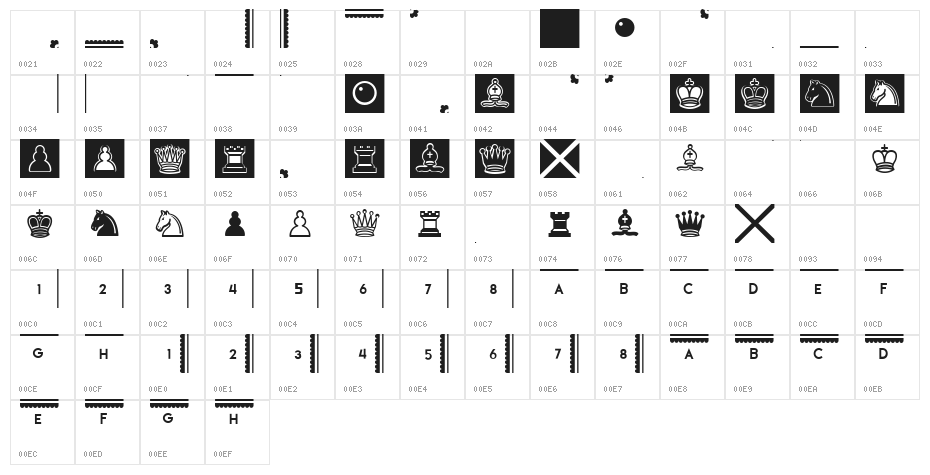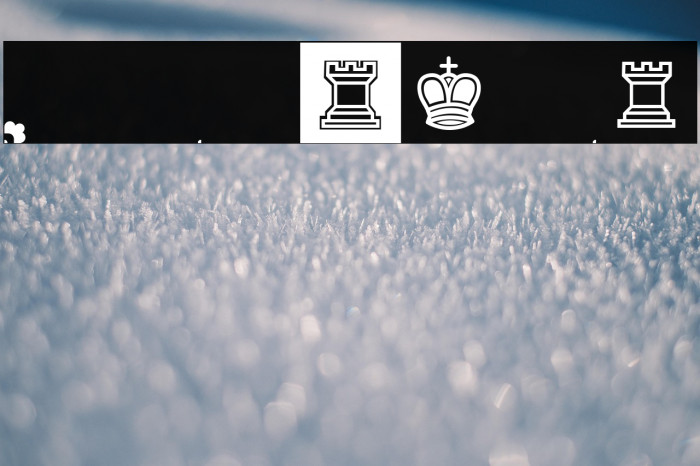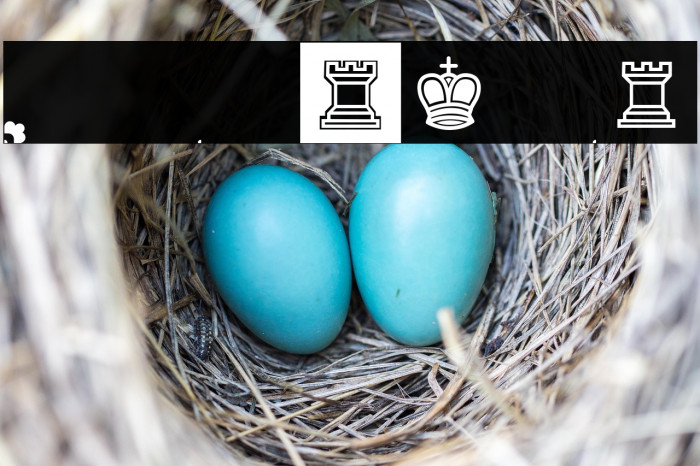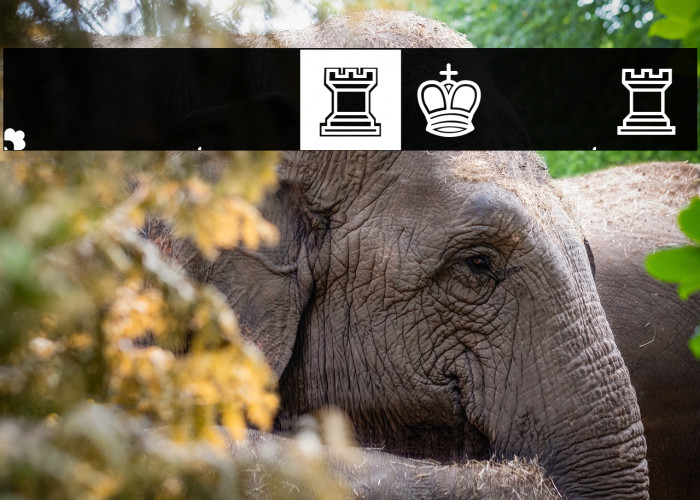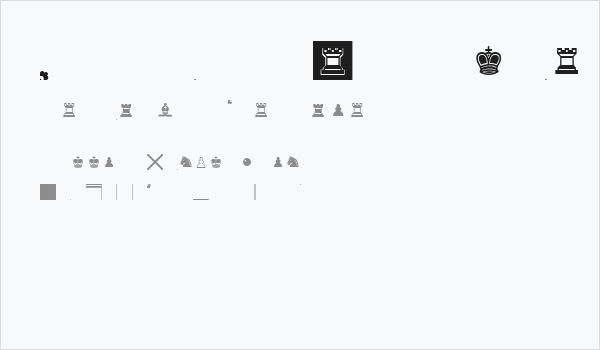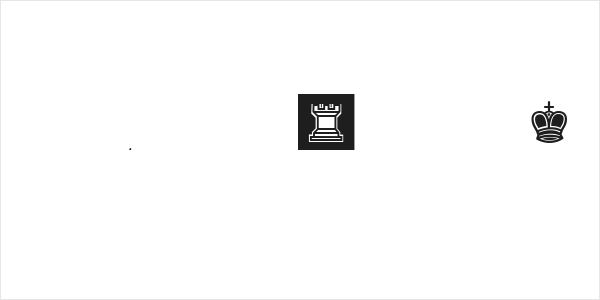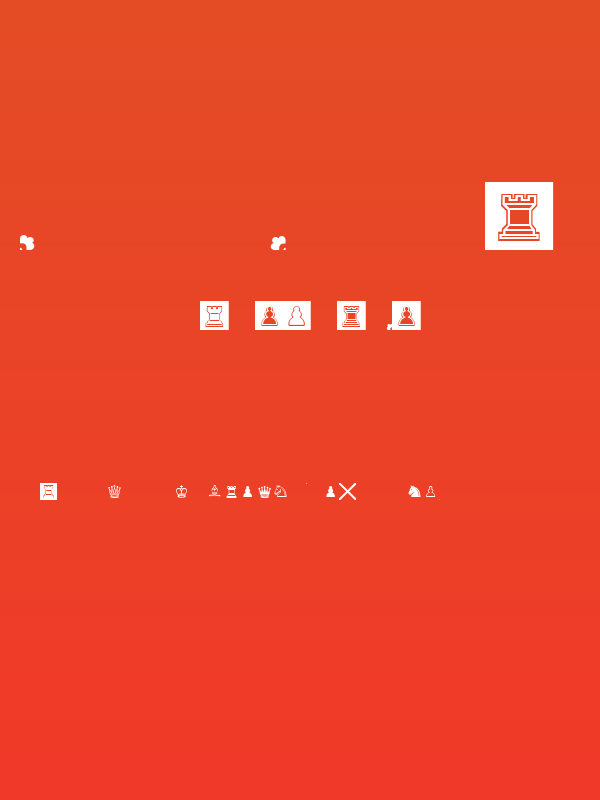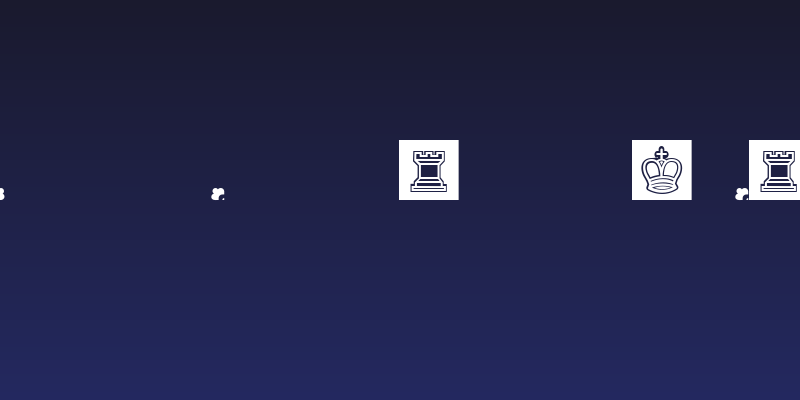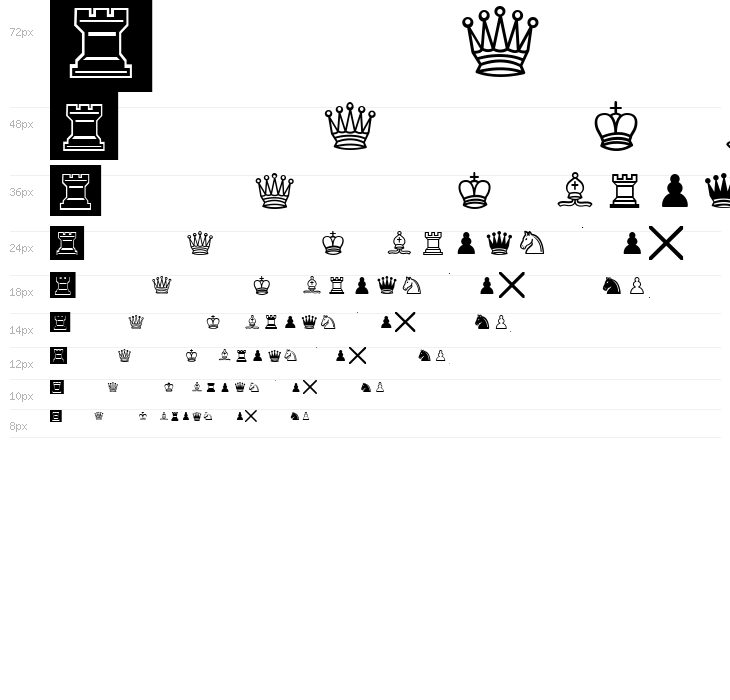
Schach Regular Font
Schach Regular Description
This is not a traditional font but rather a collection of chess piece symbols. Each symbol represents a different chess piece, such as the king, queen, bishop, knight, rook, and pawn. The symbols are designed with clear, bold outlines, making them easily recognizable and suitable for use in chess-related materials. The style is consistent across all pieces, providing a cohesive look. The symbols are primarily monochrome, focusing on clarity and simplicity.
Use CaseLogos, Educational materials, Game interfaces
Proposed ProjectsIdeal for use in chess tutorials, game interfaces, educational materials, and decorative chess-themed designs.